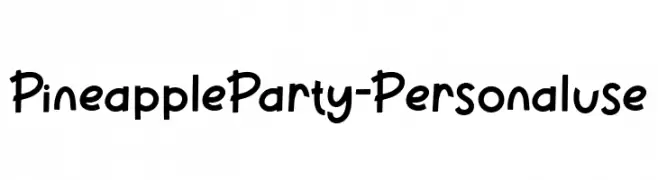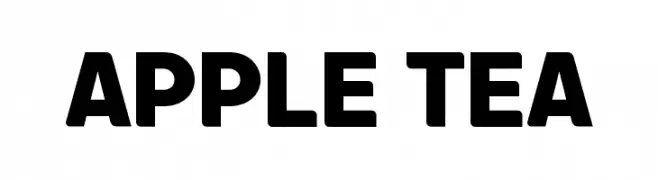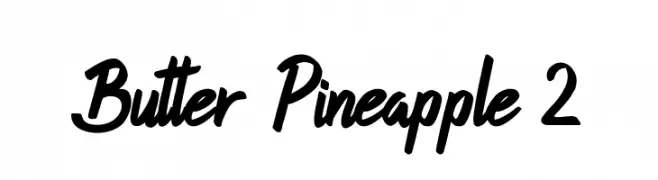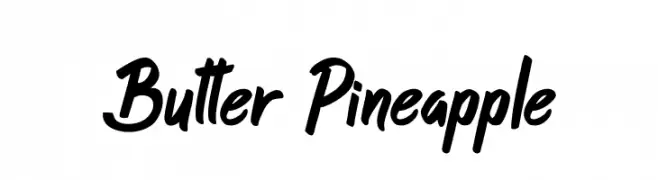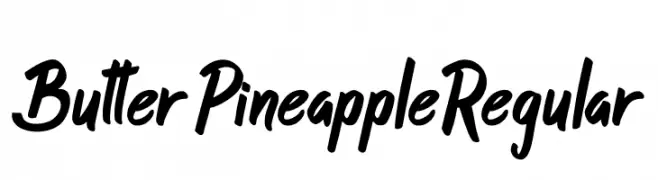
( Fonts by Attype Studio )
A playful, bold, and hand-drawn font with rounded characters and a whimsical style.
( Fonts by Zeenesia Studio )
A bold, playful font with a hand-drawn, whimsical style.
( Fonts by Nico Muslib )
A playful, bold font with rounded, hand-drawn characters.
A bold, geometric font with a modern and clean aesthetic.
( Fonts by Letterena Studios )
A playful, bold font with rounded, bubble-like characters and a cartoonish style.
( Fonts by Letterena Studios )
A playful, bold font with rounded characters and a quirky bite design.
( Fonts by Febrian Nugroho )
A bold, angular font with a geometric and edgy style.
A bold, handwritten font with a lively and energetic style.
A bold, energetic script font with a playful and dynamic style.
A bold, handwritten font with a playful and energetic style.